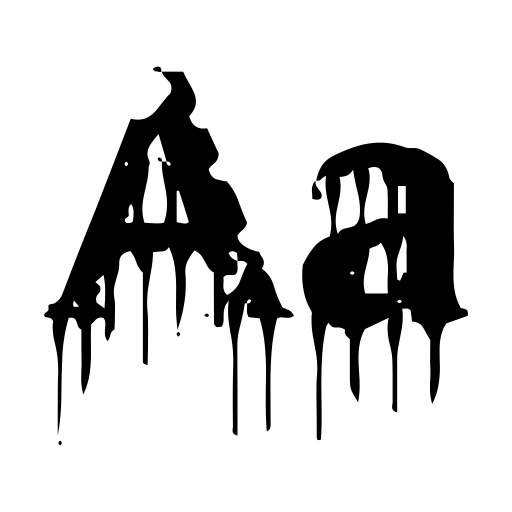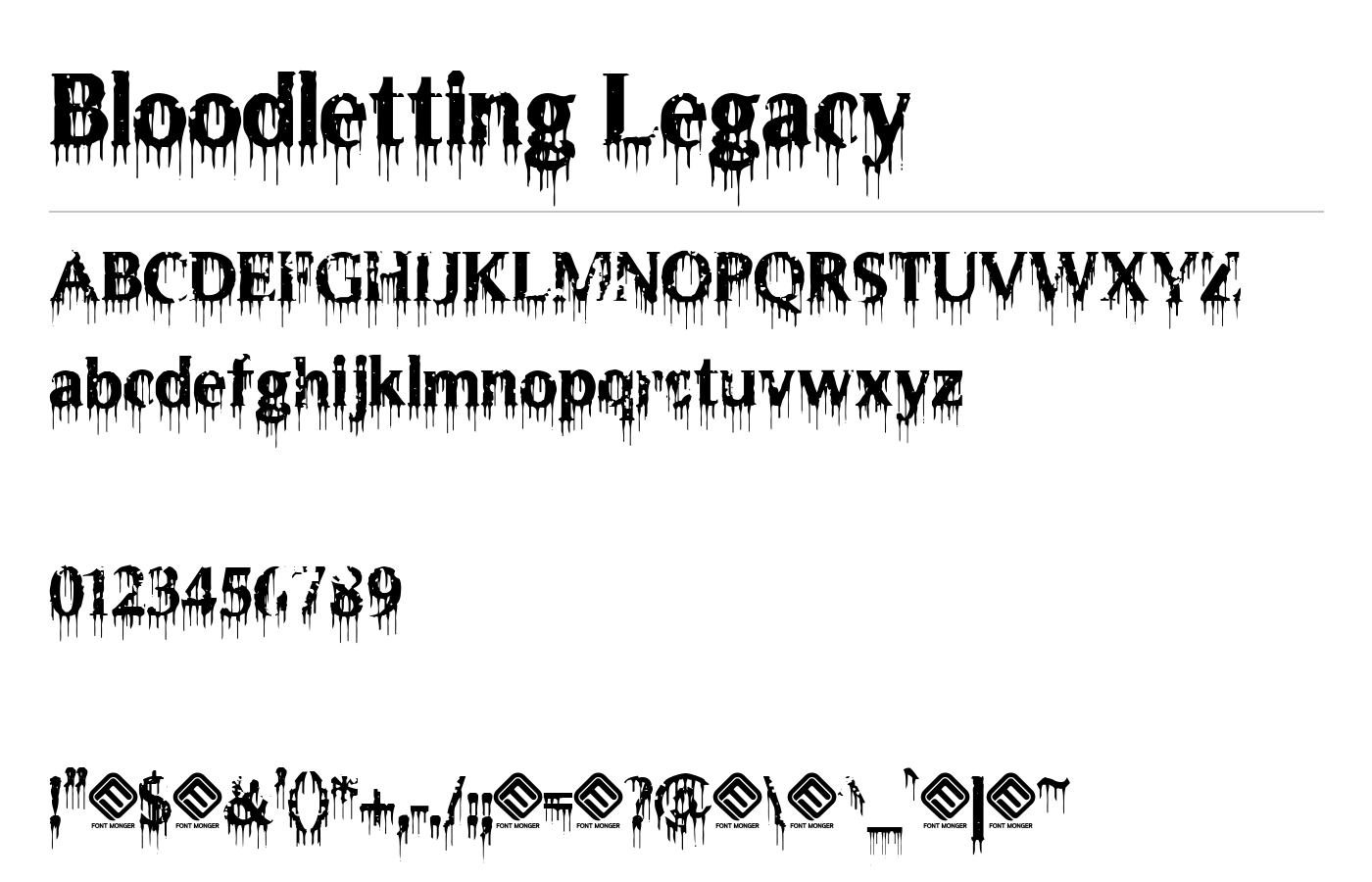
Bloodletting Legacy is a unique display font with a dripping, horror-inspired design that evokes a spooky, eerie atmosphere. Its heavy weight, irregular edges, and distinctive "bleeding" strokes make it perfect for Halloween themes, horror movie posters, or any design needing a dramatic, chilling effect. This font is best for headlines and decorative uses where strong visual impact is desired.
Bloodletting Legacy Font
About Bloodletting Legacy Font